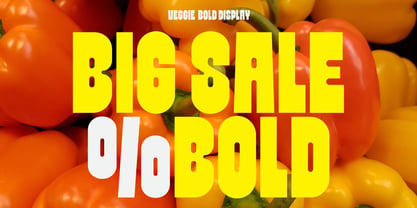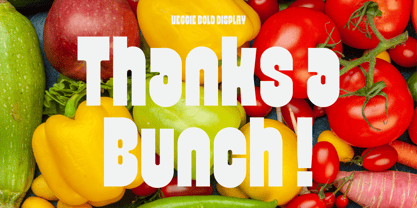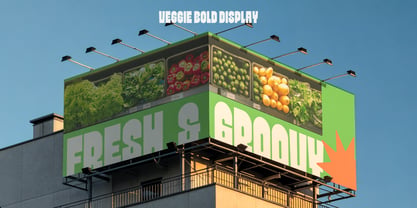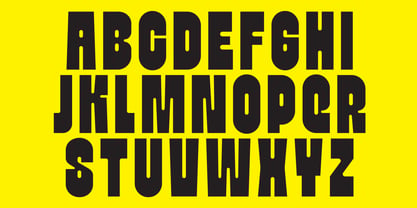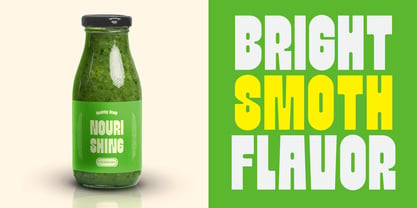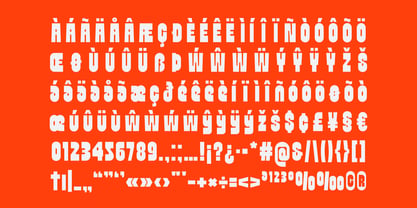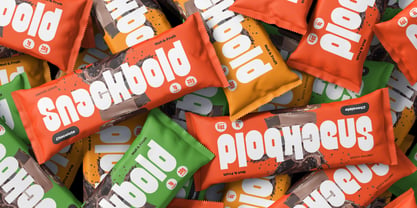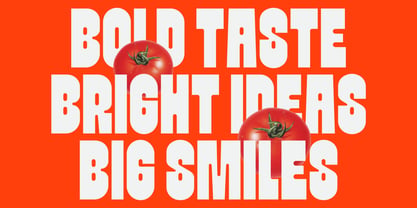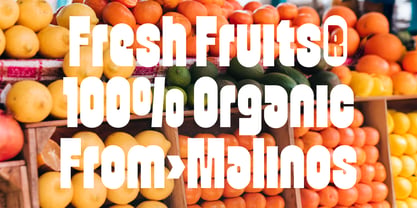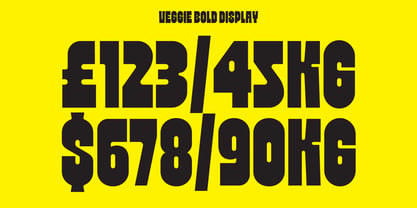
Veggie
A família de fontes Veggie foi desenhada por Muhammad Muammar, Furqan Sudirman e publicada pela limitype. Veggie contém 1 estilos. Saiba mais sobre esta família
Veggie is a bold display typeface with semi condensed proportions and rounded shapes, delivering a modern, strong, and highly recognizable appearance. Its solid and voluminous character makes it ideal for headlines, posters, product packaging, and branding needs that require high visibility and a positive energetic impression. Perfect for design projects that aim to stand out visually while still feeling friendly and contemporary. Veggie available with: Uppercase Lowercase Number Symbol Multilingual
Designers: Muhammad Muammar, Furqan Sudirman